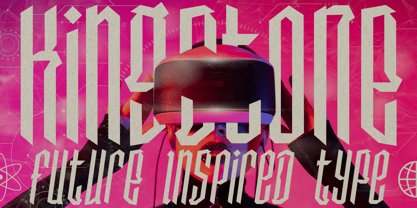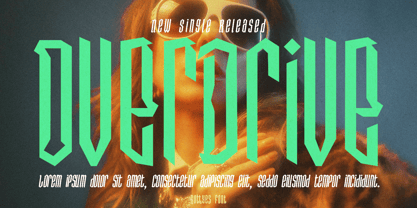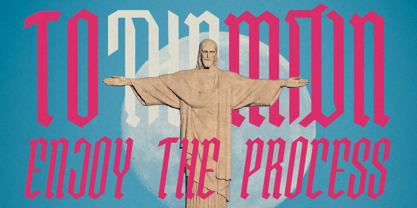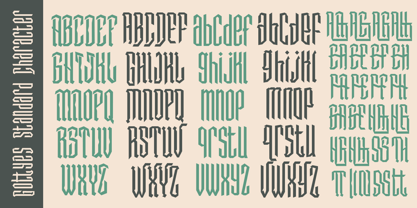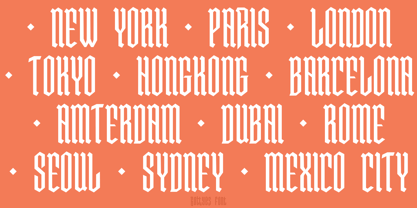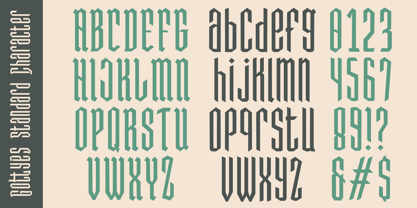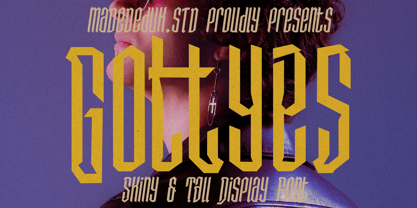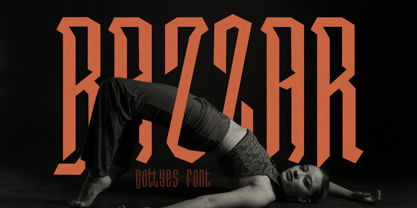
Gottyes
by madeDeduk
The Gottyes Font Family was designed by madededuk and published by madeDeduk. Gottyes contains 2 styles and family package options. More about this family
Gottyes is a skinny and tall font mixed with modernism and a vintage feel, the type features some super unique curves in certain glyphs, available in a single weight and includes an italic variant. With its dominant condensed feel it makes it a perfect type for headlines. Although it is considered a display type, feel free to experiment whether you’re creating digital content or printed materials.
Designers: madededuk
Foundry: madeDeduk